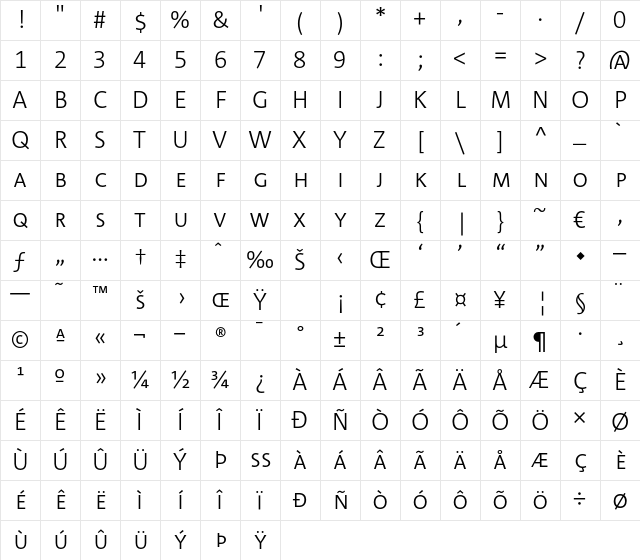
Corpid Caps Light Free Font
Corpid Caps Light
Design Context for Corpid Caps
Corpid Caps is a composed and adaptable typeface that performs quietly and consistently across a wide range of design contexts. Its slender proportions lend an understated elegance to any composition.